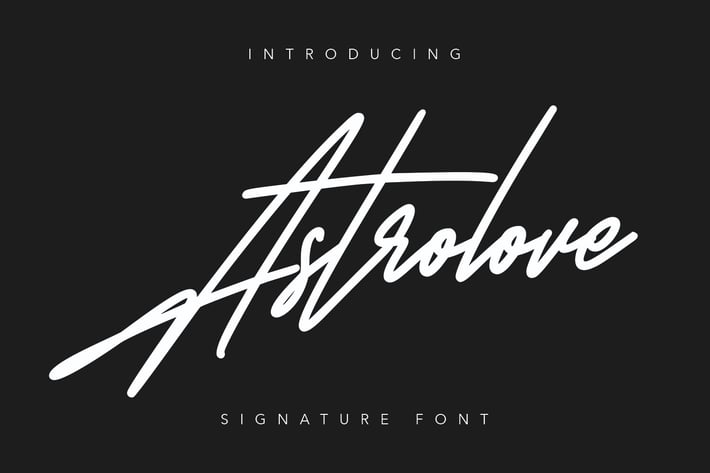
Astrolove Signature Font
Give your designs an authentic handcrafted feel. "Astrolove" is perfectly suited to signature, stationery, logo, typography quotes, magazine or book cover, website header, clothing, branding, packaging design and more.